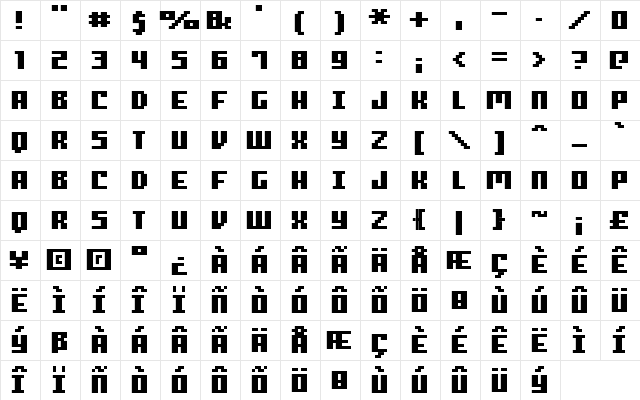
FFF Manager Bold Regular Font Preview
FFF Manager Bold Regular
Design Context for FFF Manager Bold Typeface
FFF Manager Bold takes a measured approach to typography — its balanced proportions and neutral character make it a reliable workhorse for both digital and print work. Its bold stroke weight gives it real presence on the page.